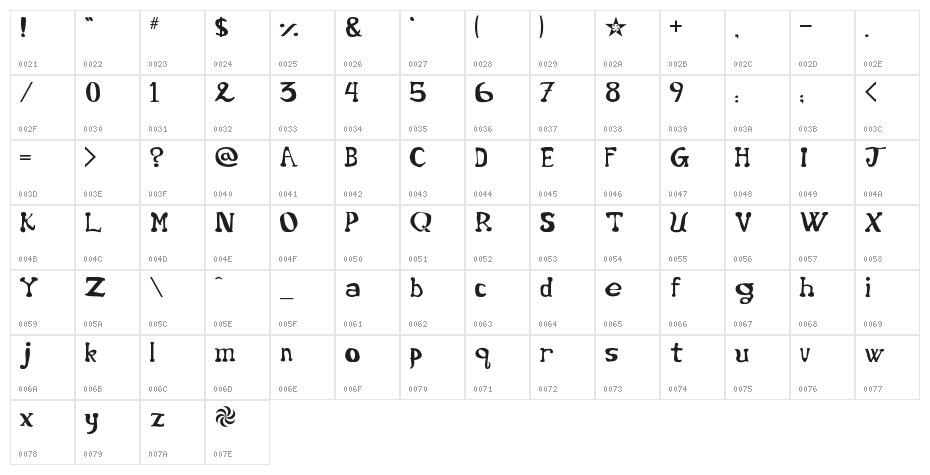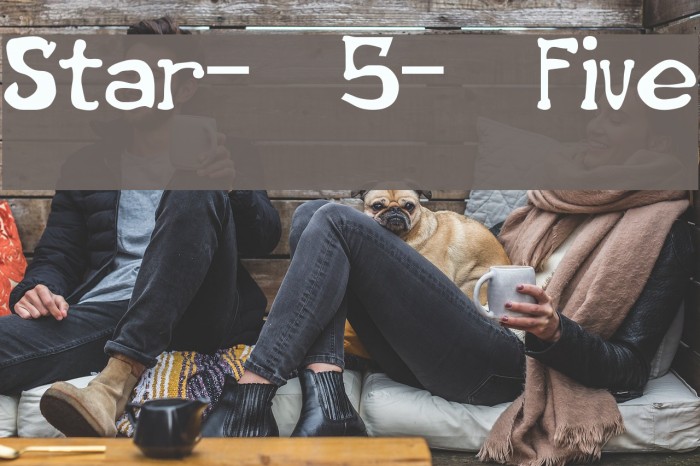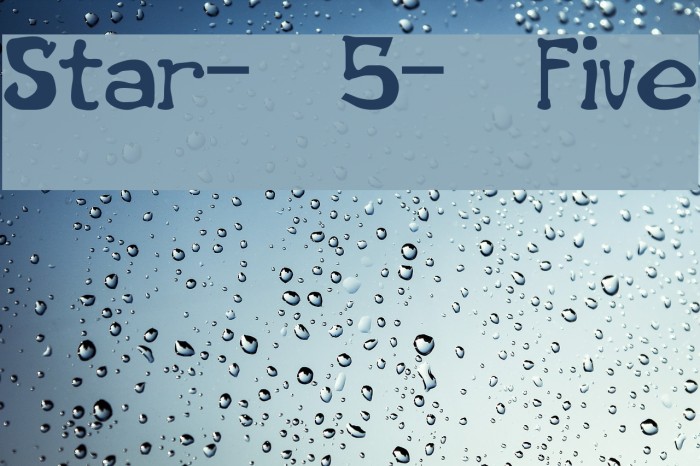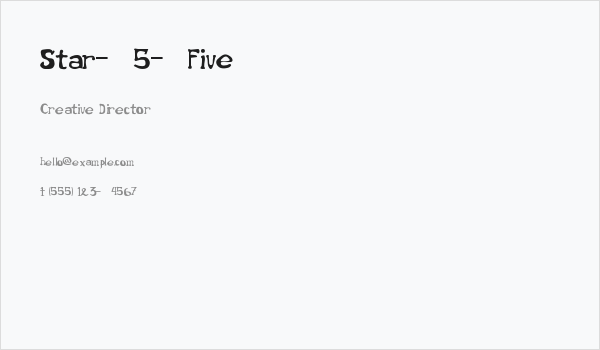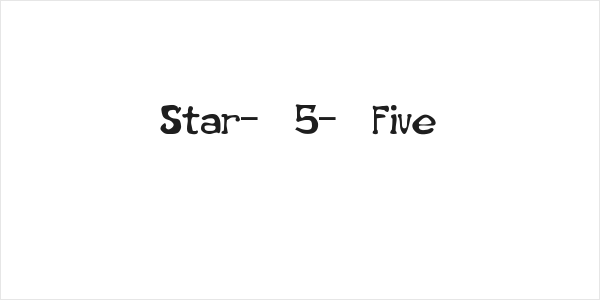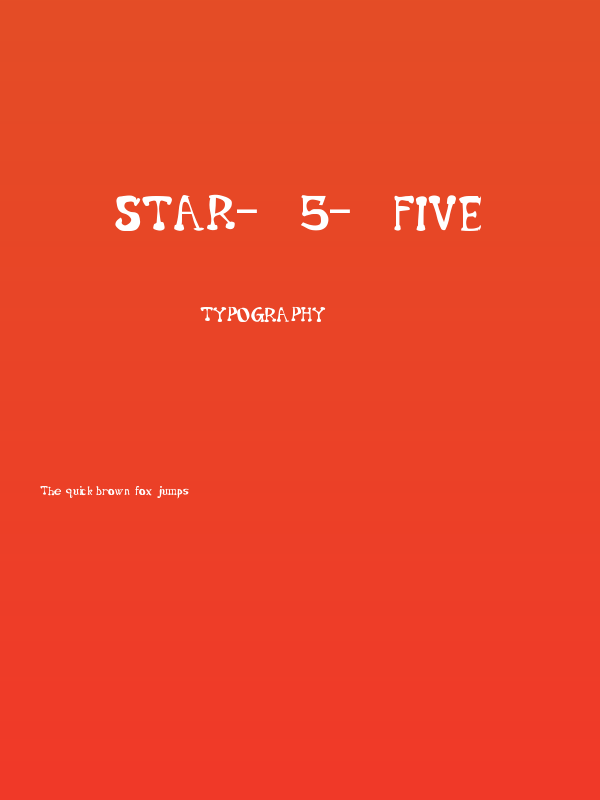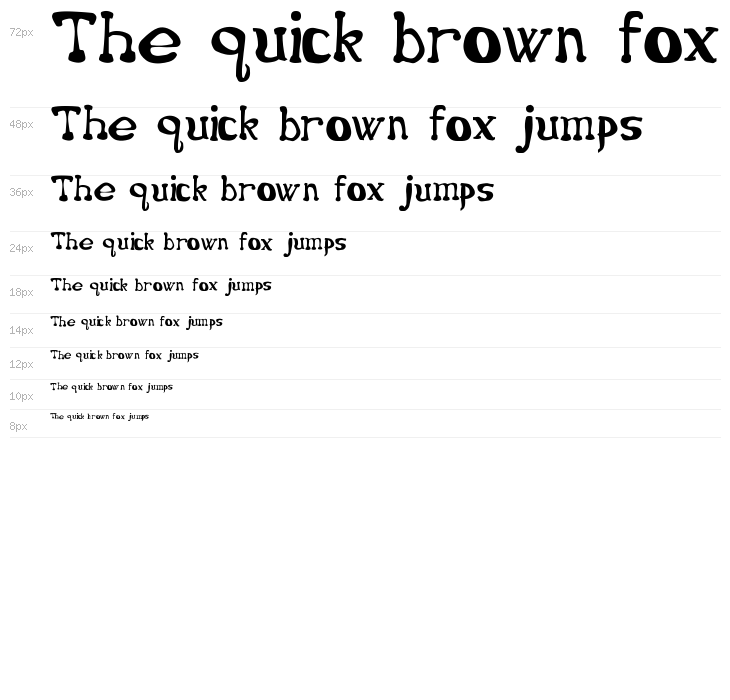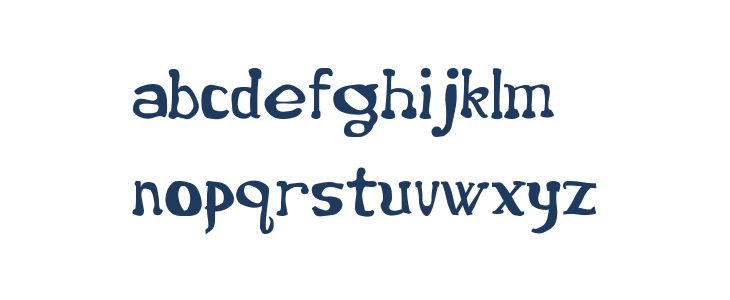
Star-5-Five Font
Star-5-Five Description
This font features a playful and whimsical design with a hand-drawn aesthetic. The characters have a unique, uneven stroke that gives them a lively and dynamic appearance. The uppercase letters are bold and slightly irregular, while the lowercase letters maintain a consistent style with rounded edges and varying stroke widths. Numbers and special characters follow the same playful theme, making the font suitable for creative and informal projects. The overall style is reminiscent of a casual, artistic script, perfect for adding a touch of personality and charm.
| Proposed Projects | Ideal for children's books, creative posters, playful branding, and artistic invitations. |